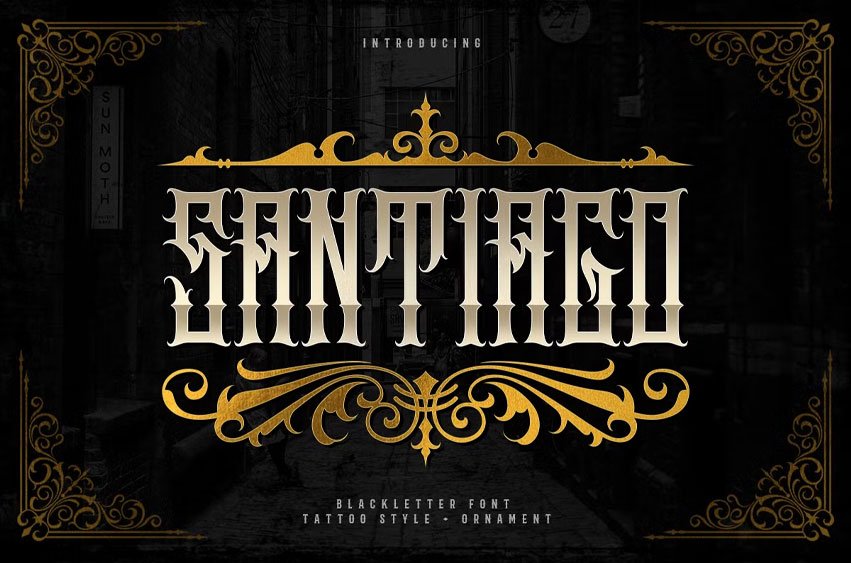
Santiago Blackletter Font Blackletter with Tattoo style + ornaments perfect for tattoo design, logo studio tattoo, shirt design,poster, branding, etc.
You can access the Ornament with _1 _2 _3 _4 _5 _6